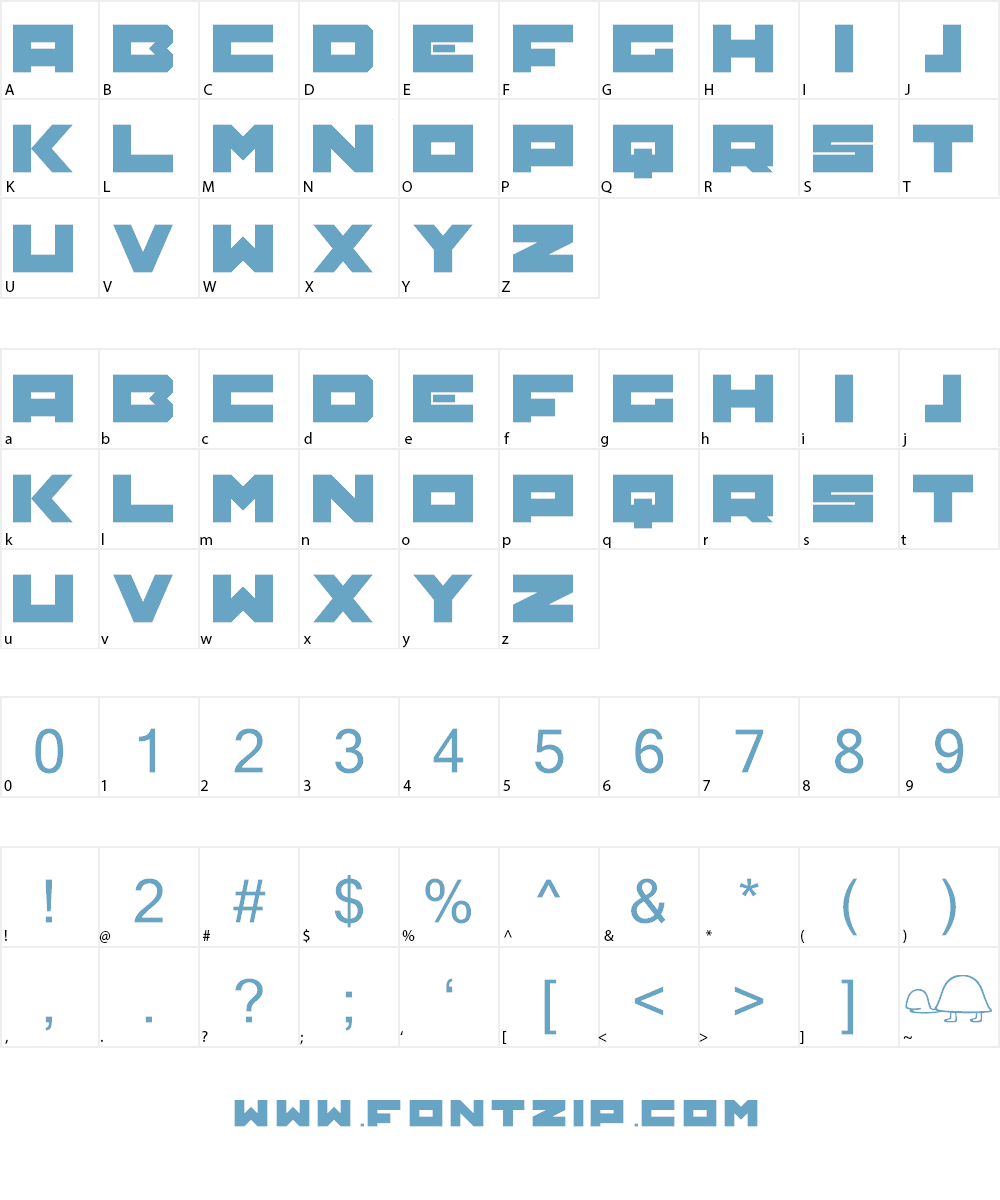
In downtown Detroit there are a lot of empty, abandoned buildings. On many
you can find one or two graffiti turtles spray painted on them. They are usually
accompanied by the word "turtle" spelled in a variety of interesting ways:
TRTL, Turdl, trdl, etc. I have heard that this is done to the abandoned
buildings in protest to the glacial pace at which the city of Detroit is being
"revitalized".
The idea for this font came from the "TRTL" lettering in the windows of one
such abandoned building. The messages were written one letter per window and
said things like "NO WAR" and "NO RACISM" and, of course, "TRTL".